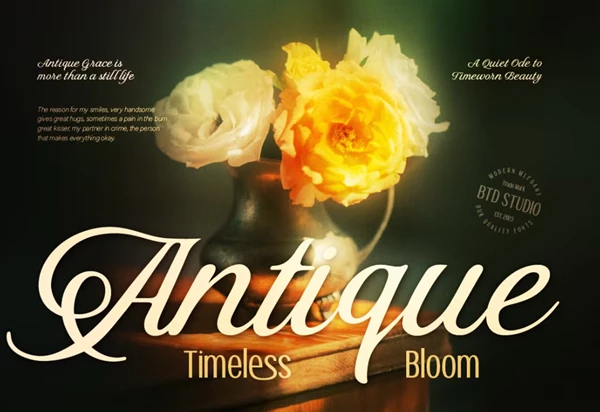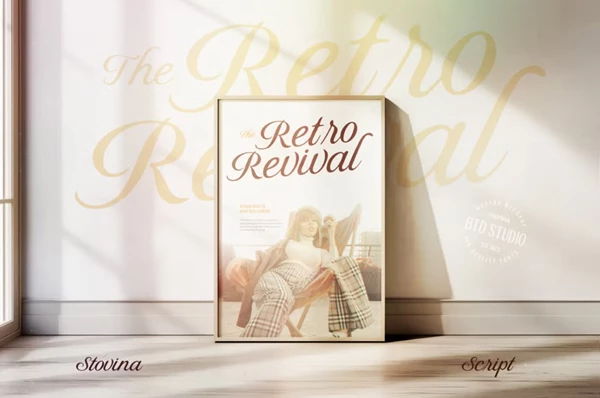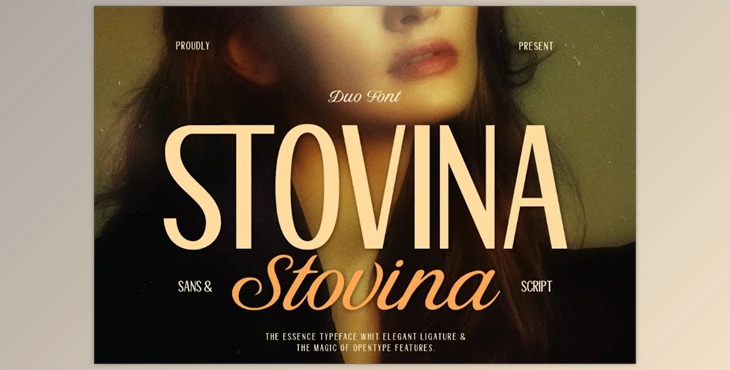
Stovina Font:
Stovina is a refined Sans Serif and a delicate Script font family, the perfect pairing to add nurturing elegance to your designs. A professional yet adorable assemblage. An ideal combo for design professionals looking to add elegant touches to their projects with Stovina's intricate ligatures and OpenType features.
Some great features of Stovina Font:
- Full alphabet (Uppercase & Lowercase)
- Numbers & Punctuation
- Alternate characters
- Ligatures